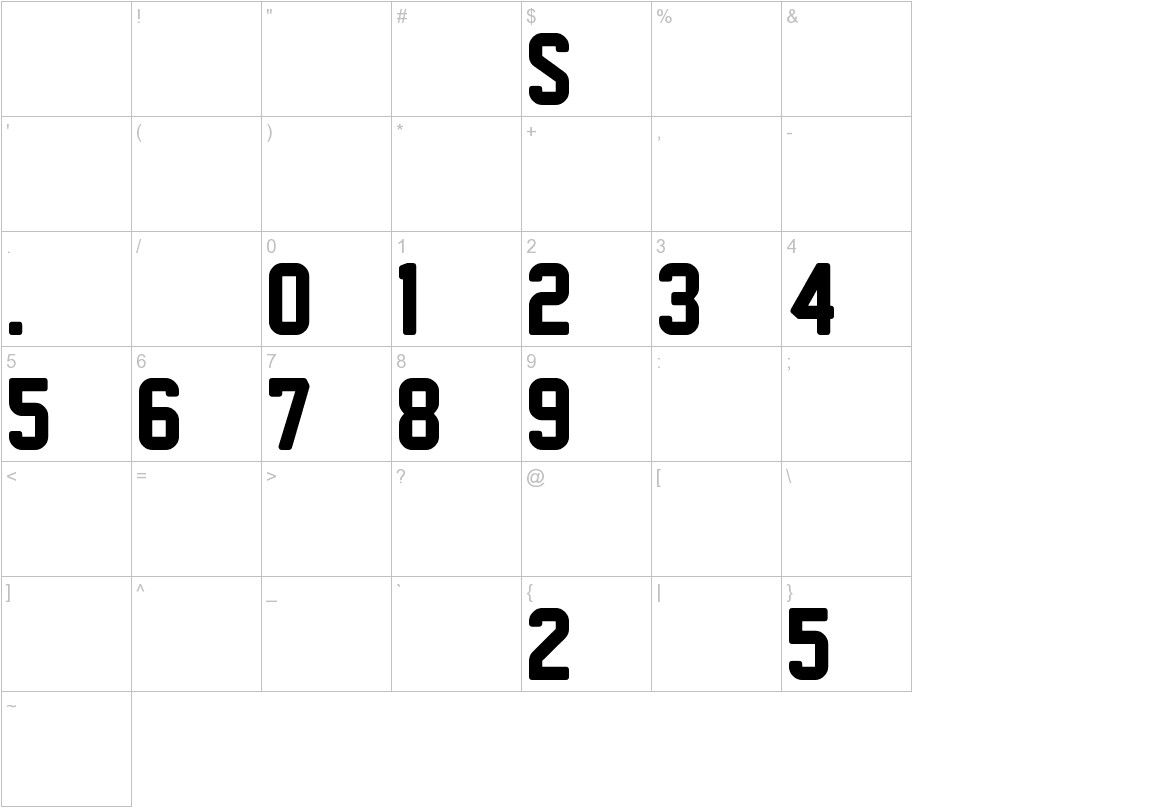
New Athletic M54
Modern twist to a classic sports font. Ideal for apparel design and naming sports jerseys. The upper and lower case 'S' and 's' are different, the upper case one being more traditional for this style of font. The left and right curly brackets hold alternate glyphs for numbers '2' and '5'.